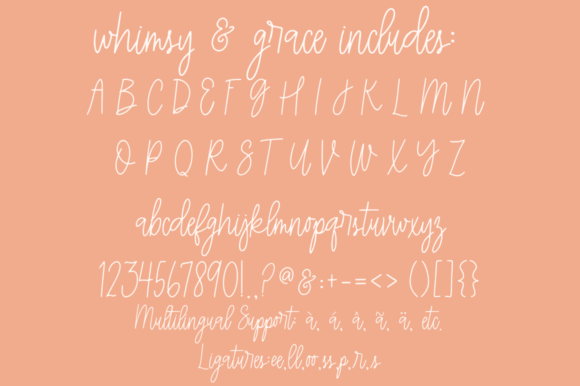
Whimsy & Grace Font
Introducing Whimsy & Grace, an adorable handwritten script, perfect for all your creative projects! Whether you’re a Cricut enthusiast or simply looking for a charming cursive font, this handwritten gem is exactly what you need. With its elegant curves and smooth strokes, our cute script font brings a delightful touch to invitations, greeting cards, and personalized crafts.